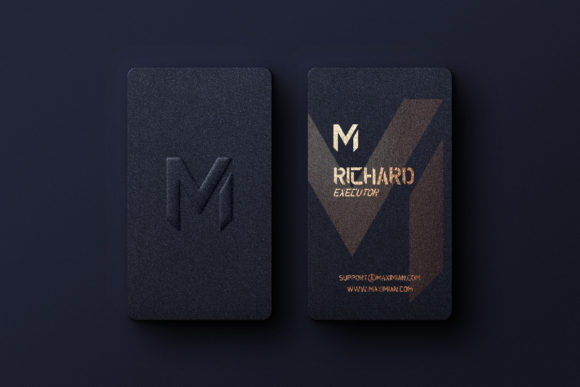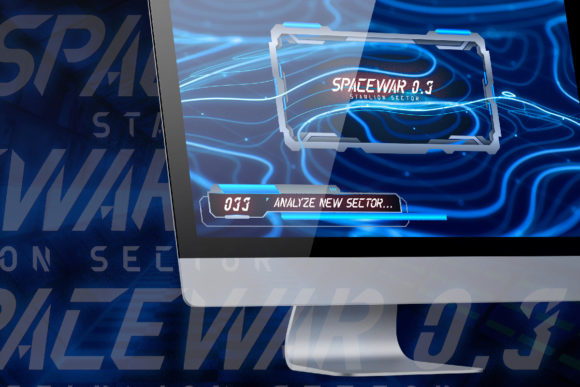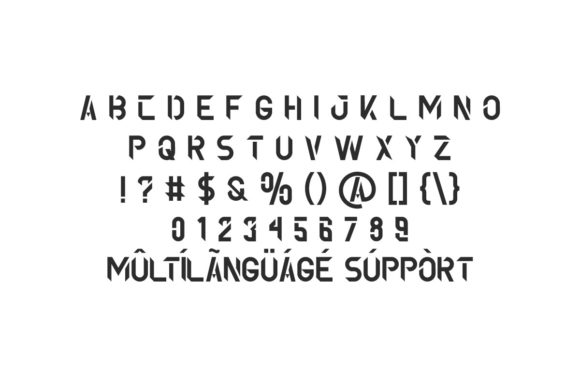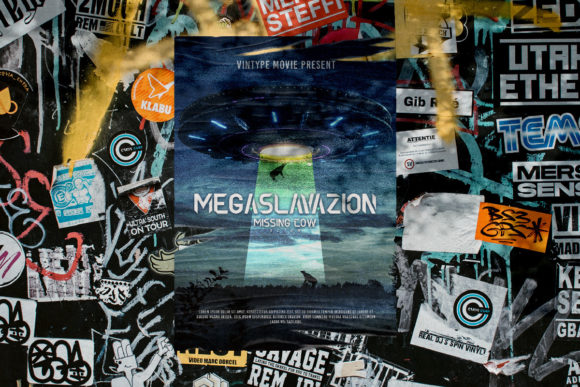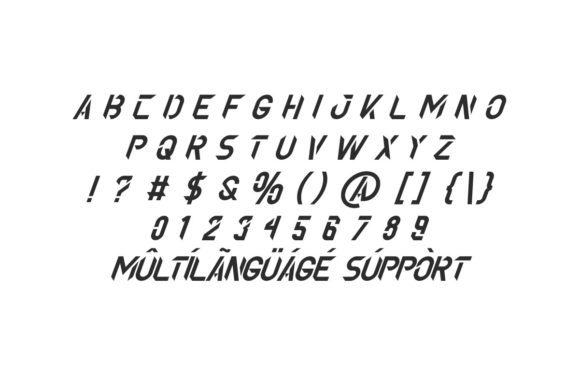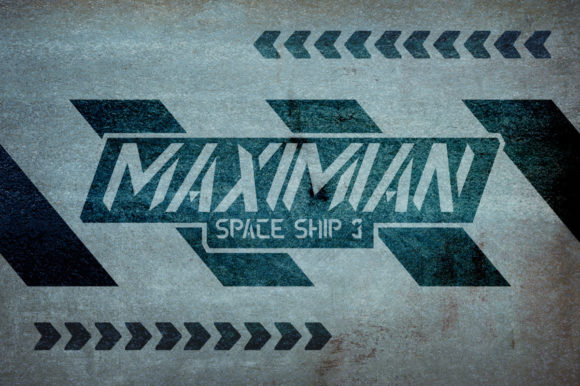
Introduction to Maximian Font
Have you ever been stuck in front of your computer screen, staring at a blank canvas, waiting for inspiration to strike? That’s exactly where I was when I stumbled upon the Maximian Font. Its bold and modern design instantly caught my attention, and I knew I had to share it with fellow designers and creatives.
As a go-to design resource, the Maximian Font is perfect for adding a touch of coolness to any creative project. Whether you’re working on a poster, label, or branding project, this font is sure to elevate your design to the next level. And the best part? It’s available for free download, making it an invaluable asset for designers of all levels.
Key Features of Maximian Font
- Unique, modern font style with a transparent background, perfect for adding a touch of elegance to any design.
- Designed to be highly legible, even at small font sizes, making it perfect for use in a variety of contexts.
Honest Review: Maximian Font
As a designer, I’m always on the lookout for high-quality design resources to enhance my creative projects. The Maximian Font has been a recent addition to my design arsenal, and I’m excited to share my thoughts on this free download.
- ✨ Elegant and sophisticated design aesthetic, perfect for luxury brands and high-end creative projects.
- ✨ Transparent background option, allowing for seamless integration with your design.
- ⚠️ Limited character set, which may not be suitable for projects requiring extensive language support.
- ⚠️ No bold or italic variants, which may limit its use in certain design scenarios.
Overall, I’m impressed with the Maximian Font‘s design quality and versatility. While it may not be the most comprehensive font, it’s a great addition to any designer’s toolkit, especially for creative projects requiring a touch of elegance and sophistication.
Tips for Getting the Most Out of Maximian Font
Use Maximian Font with a transparent background to create a clean and modern design. Experiment with different font sizes and colors to add visual interest to your design. You can also use Maximian Font in combination with other design elements to create a unique and creative project.
Maximian Font is a versatile font that can be used in a variety of design projects, including logos, business cards, and brochures. It’s also a great font to use in social media graphics, email marketing campaigns, and other digital design projects.